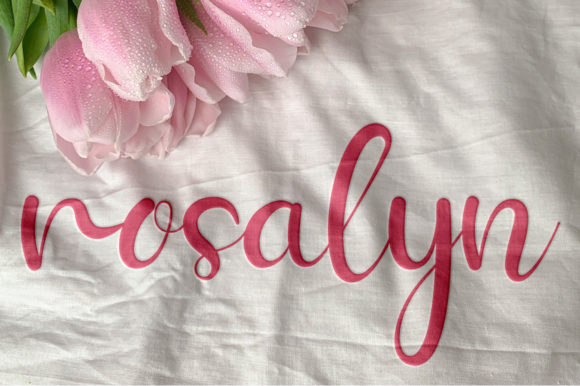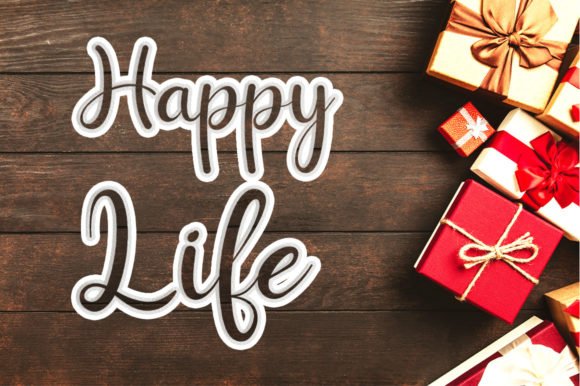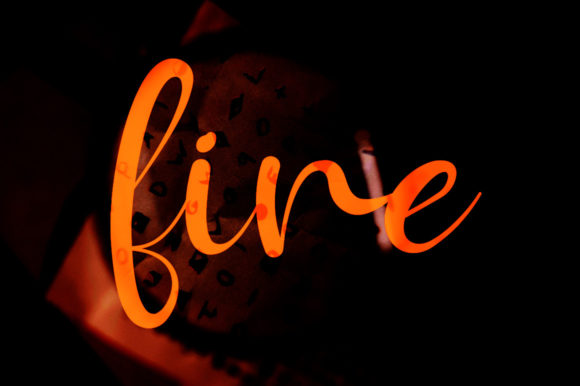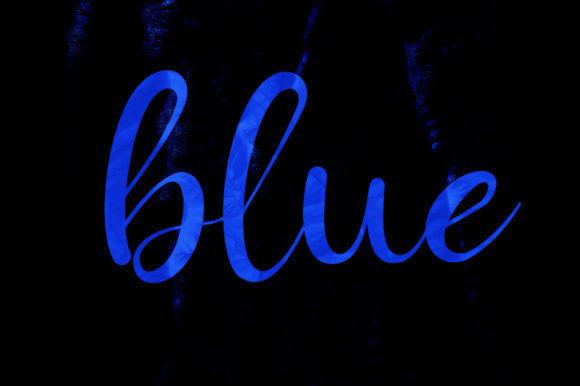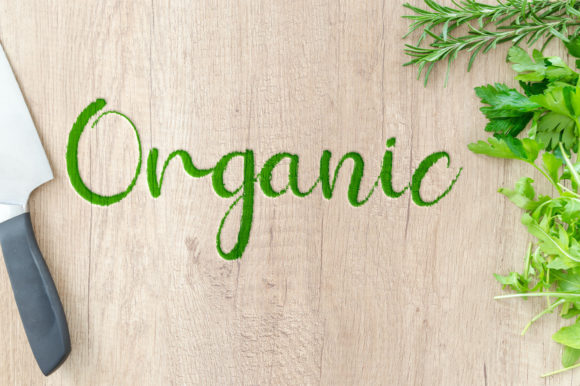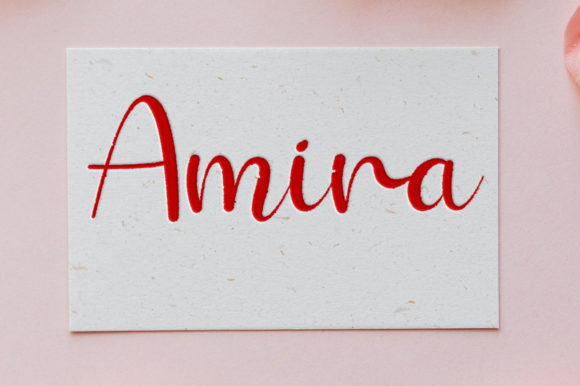
Introduction to Rosalyn Font
As a designer, there’s nothing quite like the rush of excitement you get when you stumble upon the perfect font for your creative project. For me, that moment came when I discovered the lovely Rosalyn Font. Its elegant script and approachable charm immediately caught my eye, and I knew I had to share it with the world.
Whether you’re a seasoned pro or just starting out, Rosalyn Font is sure to elevate your designs and leave a lasting impression on your audience. So why not give it a try and see the amazing outcome for yourself?
Rosalyn Font
- High-quality, professional font suitable for creative projects
- Includes uppercase and lowercase letters, as well as numerals and punctuation marks
- Perfect for designers, artists, and creatives looking for a high-quality font to enhance their projects
Honest Review: Rosalyn Font
I recently stumbled upon the Rosalyn Font while searching for a high-quality design resource for a creative project. I must say, I was impressed with the results. ✨ The font’s elegant and sophisticated design makes it perfect for a wide range of applications, from wedding invitations to luxury brand logos.
- What works well: ✨ High-quality design, versatile and elegant, free download, transparent background option.
- Limitations: ⚠️ Limited character set, not suitable for body text due to its formal and ornate design.
Overall, I’m thoroughly impressed with the Rosalyn Font. Its high quality and unique design make it a valuable addition to any designer’s toolkit. If you’re working on a creative project that requires a touch of sophistication, I highly recommend giving the Rosalyn Font a try.
Rosalyn Font
Tips for Getting the Most Out of Rosalyn Font
For the best results, use Rosalyn Font in combination with other high-quality design resources. Experiment with different font sizes and colors to add visual interest to your design.
The Rosalyn Font is perfect for a variety of creative projects, including wedding invitations, business cards, and social media graphics. Its elegant design and transparent background make it a versatile and practical design resource.